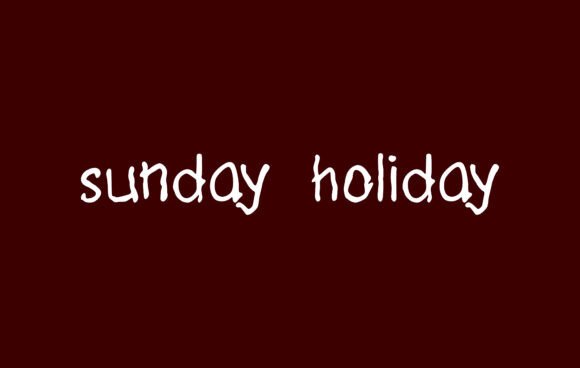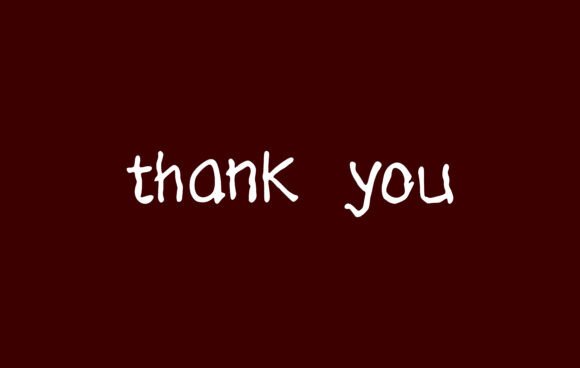
Aether Font: Elevate Your Designs with a Touch of Romance
In the world of typography, a well-crafted font can make all the difference in bringing your creative vision to life. Aether font is a stunning, authentic handwritten font that exudes a romantic touch, perfect for designers and crafters looking to add a touch of elegance to their projects. In this article, we’ll dive into the world of Aether font, exploring its features, uses, and benefits, and why it’s becoming a favorite among designers.
The Charm of Aether Font
Aether font is a beautifully designed, handwritten font that boasts a unique, romantic charm. Its authentic, cursive style is expertly crafted to evoke a sense of sophistication and whimsy, making it perfect for a wide range of design applications. Whether you’re looking to create eye-catching magazine headlines, stylish social media graphics, or elegant wedding invitations, Aether font is sure to impress.
Key Features of Aether Font
- Legibility: Aether font is designed to be highly legible, making it perfect for use as both title and body text.
- Romantic Touch: The font’s handwritten style adds a touch of romance and whimsy to any design.
- Versatility: Aether font is suitable for a wide range of design applications, including magazine headlines, social media graphics, branding, wedding invitations, and more.
- Elegance: The font’s elegant, cursive style adds a touch of sophistication to any design.
Uses of Aether Font
Aether font is an incredibly versatile font that can be used in a variety of design applications. Here are some ideas to get you started:
- Magazine Headlines: Use Aether font to create eye-catching headlines that grab attention.
- Social Media Graphics: Add a touch of elegance to your social media graphics with Aether font.
- Branding: Use Aether font to create a unique and memorable brand identity.
- Wedding Invitations: Add a touch of romance to your wedding invitations with Aether font.
- Cards: Use Aether font to create beautiful, handmade cards for any occasion.
Benefits of Using Aether Font
So, why choose Aether font for your design projects? Here are just a few benefits:
- Unique Style: Aether font offers a unique, handwritten style that sets it apart from other fonts.
- Ease of Use: The font is highly legible and easy to use, making it perfect for designers of all skill levels.
- Time-Saving: With Aether font, you can create professional-looking designs in no time.
Tips for Using Aether Font
To get the most out of Aether font, here are a few tips:
- Experiment with Sizes: Try using Aether font in different sizes to create visual interest.
- Pair with Other Fonts: Pair Aether font with other fonts to create a unique and stylish combination.
- Use in Combination with Images: Use Aether font in combination with images to create a visually appealing design.
In conclusion, Aether font is a beautiful, authentic handwritten font that offers a romantic touch and endless design possibilities. With its legibility, versatility, and elegance, it’s no wonder that Aether font is becoming a favorite among designers and crafters. Whether you’re looking to create stunning magazine headlines, elegant wedding invitations, or stylish social media graphics, Aether font is the perfect choice. So why wait? Download Aether font today and take your designs to the next level!